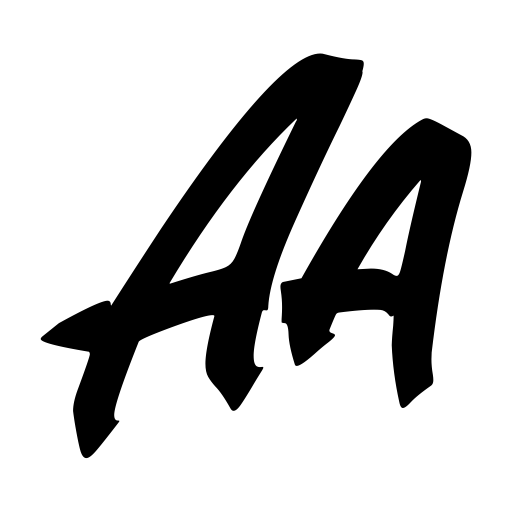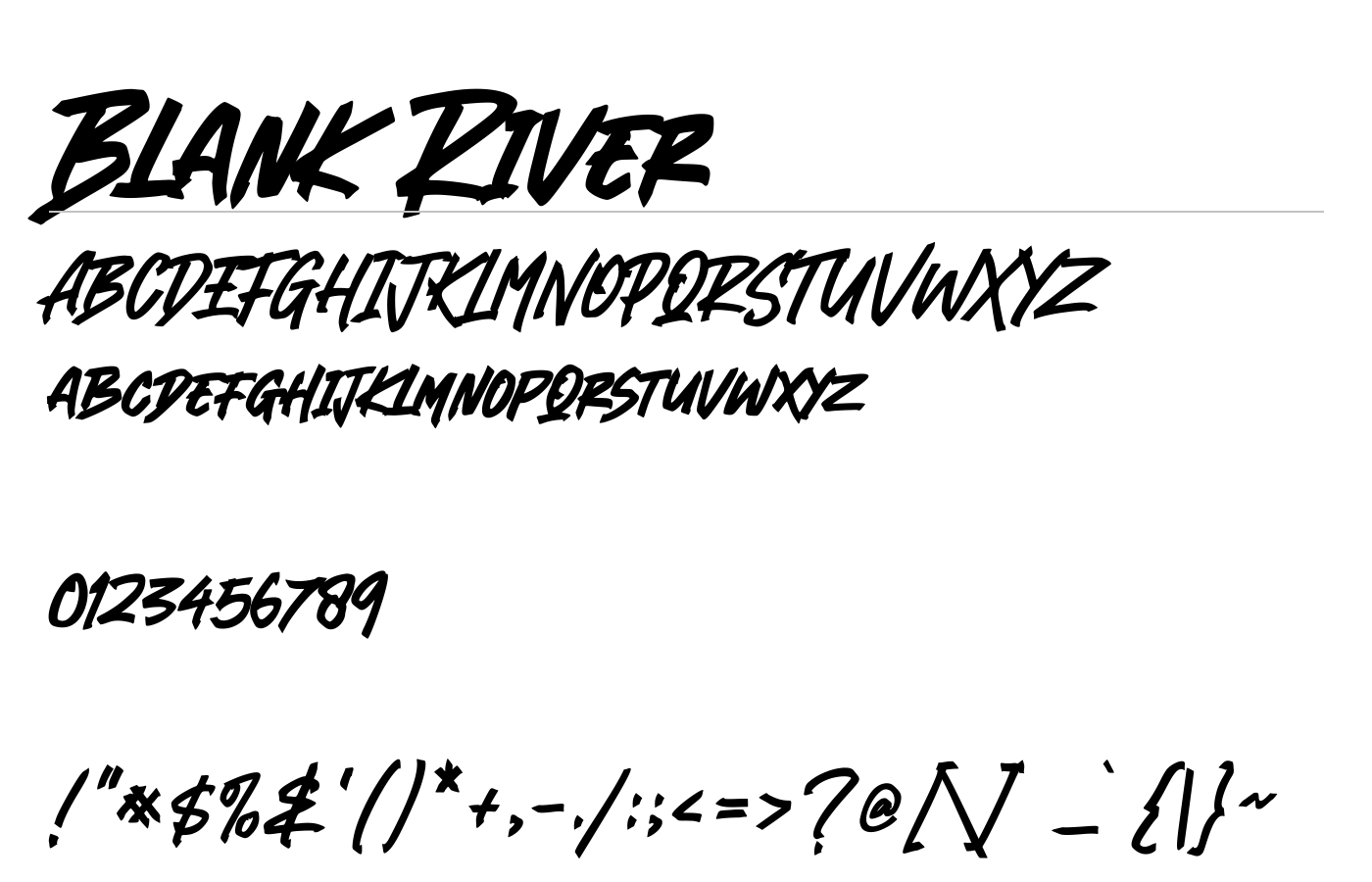
Blank River is a bold, energetic script font with a hand-painted, brushstroke style that conveys movement and intensity. Its slightly condensed, uppercase-driven letterforms with sharp, dynamic edges make it perfect for eye-catching headlines, logos, and posters that need a strong, expressive personality. This font works well in creative, sporty, or edgy branding contexts where a sense of urgency and authenticity is desired.
Blank River Font
About Blank River Font
| Font family | Blank River Font |
| Designer | Colllab Studio Team |